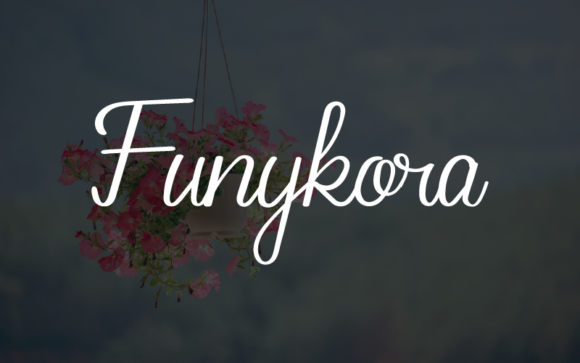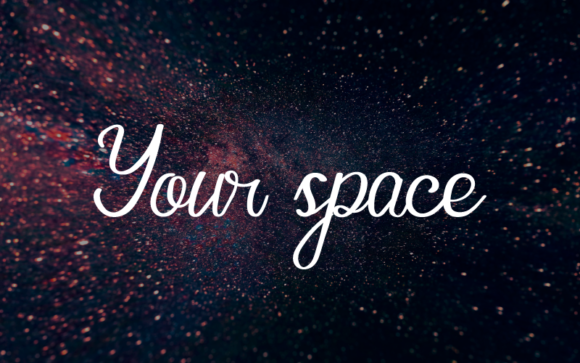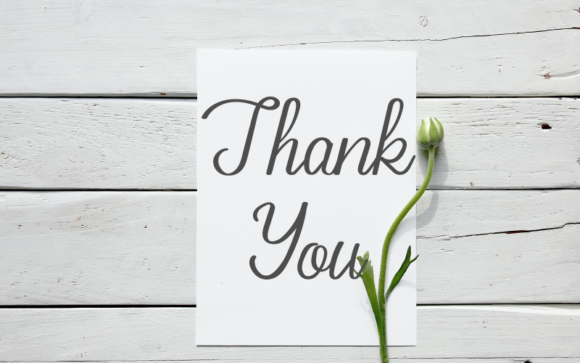
Funykora Font
About Funykora Font
Funykora is a sweet and flowing handwritten font. Its relaxed and round lettered style makes it fitting to a wide range of designs.